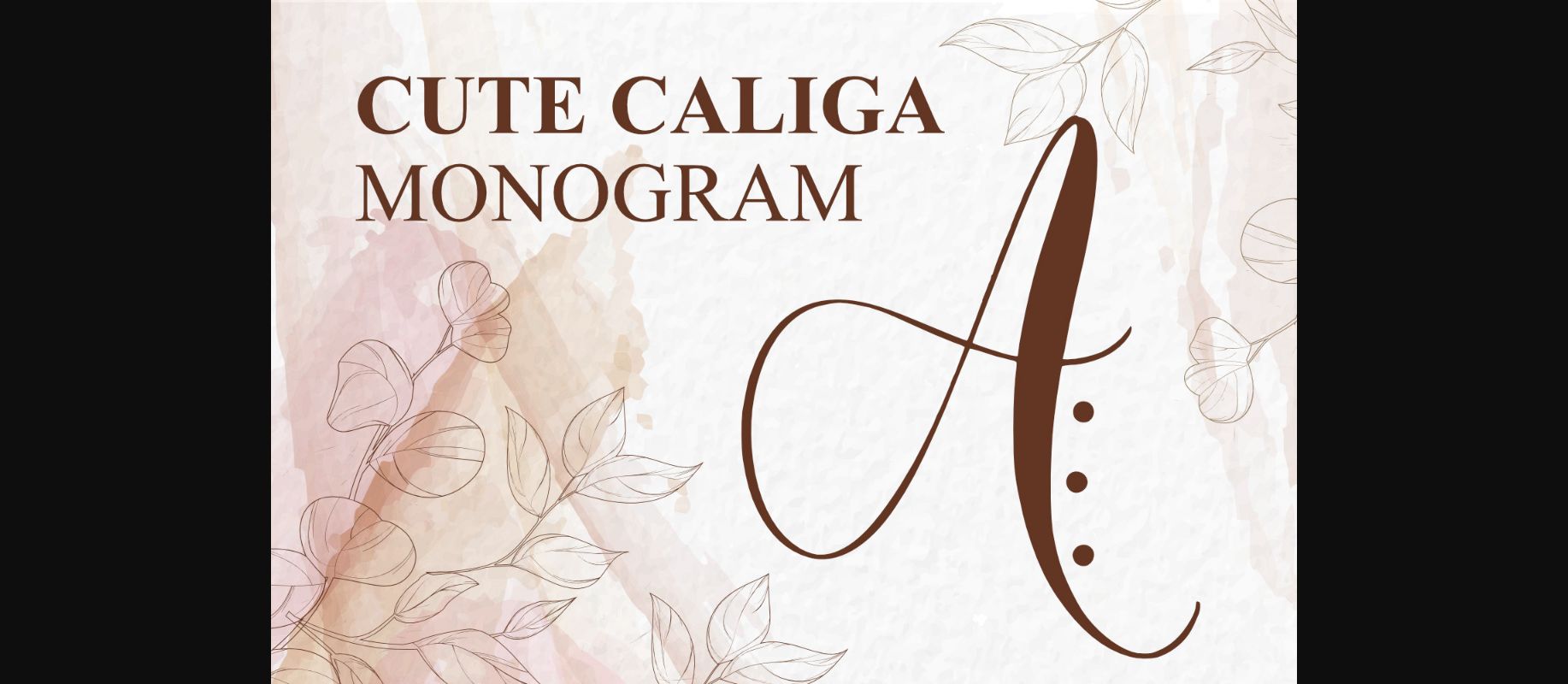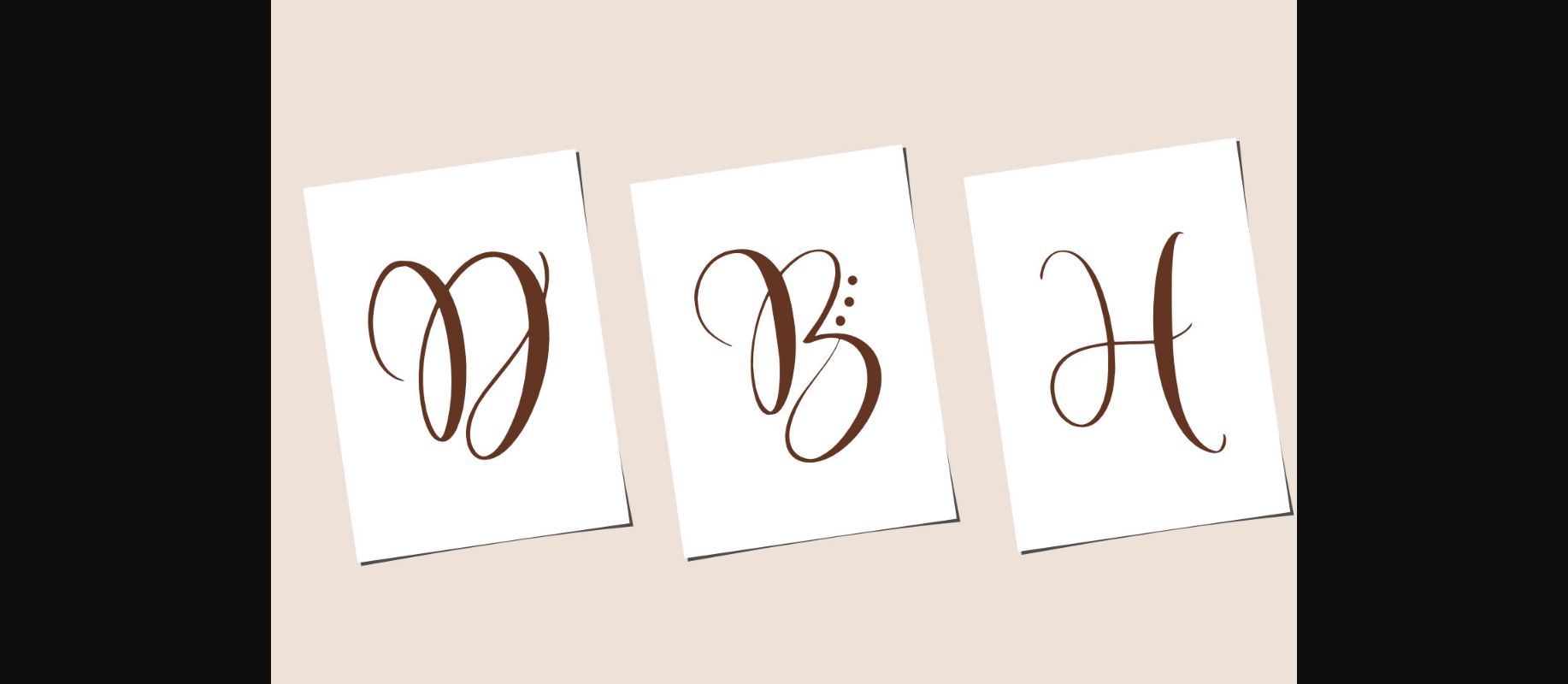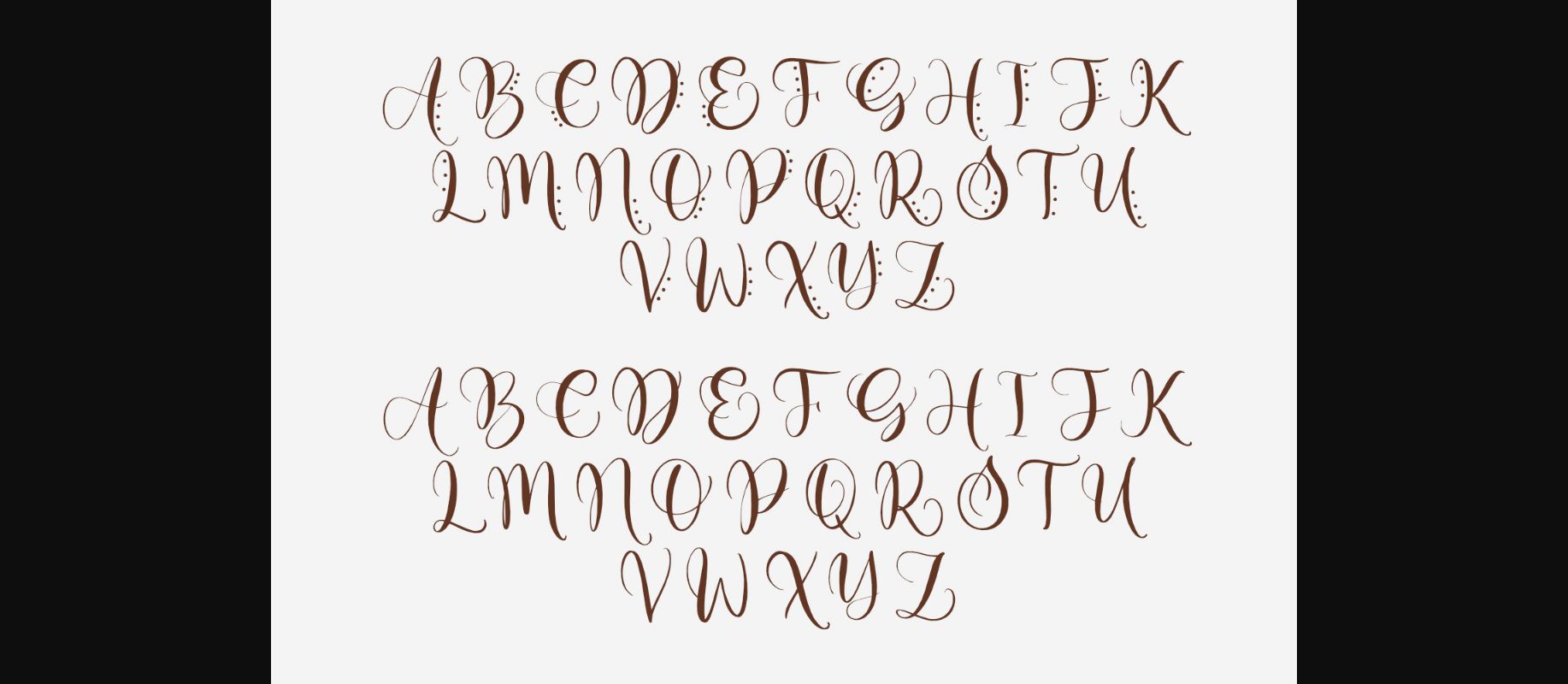
HomeDecorative FontsMonogram Cute Caliga Font Decorative Fonts Monogram Cute Caliga Font FacebookXPinterestWhatsApp 1 of 5 ... Monogram Cute Caliga Font Poster 2... Monogram Cute Caliga Font Poster 3... Monogram Cute Caliga Font Poster 4... Monogram Cute Caliga Font Poster 5... About Monogram Cute Caliga Font is a beautiful monogram font. This font will add a feeling of love to any craft idea, be it wedding crafts, invitations, greeting cards, Valentines, logos, and others. DOWNLOAD NOW People also explored Jasmine Font Monogram Reindeer Font Fabatireng Font Firstlove Font Alqaisumah Font Midnight Font Dolanan Font Autumn Font Rebecca Font 453 0 TagsMonogram Cute Caliga Font Previous articleMonogram Maelda FontNext articleLove Cookie Font LEAVE A REPLY Cancel reply Comment: Please enter your comment! Name:* Please enter your name here Email:* You have entered an incorrect email address! Please enter your email address here Website: Save my name, email, and website in this browser for the next time I comment. Personal Use Free Hello December Personal Use Free Read more about this font Maharany Personal Use Free Read more about this font Travelling Free Brush Personal Use Free Read more about this font Alphakind Personal Use Free Read more about this font BLOG How to Cut Any Font on Cricut: Convert a Font to SVG (Free) Turn any font into a clean SVG so it cuts crisp on Cricut - a quick 3-step workflow using a free font-to-SVG tool. 5 Fonts That Will Dominate Design Trends in 2026 Exploring Font Trends Transform Your Website: Elevate Your Typography with 7 Best Web Font Generators